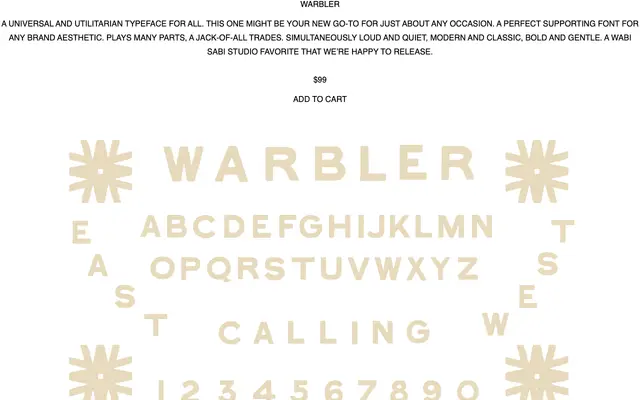
A versatile, utility-minded sans from Wabi Sabi Type pitched as an all-purpose supporting face for brand work.
Warbler is positioned as a workhorse typeface, adaptable enough to suit a wide range of brand aesthetics without demanding attention. The foundry frames it as sitting somewhere between loud and quiet, modern and classic, suggesting a humanist sensibility that holds up in both display and text contexts. Priced at $99, it is listed as a studio favourite at Wabi Sabi Type.
The foundry describes Warbler as simultaneously modern and classic, bold and gentle, suggesting a humanist sans that balances warmth with utility rather than a strict geometric or grotesque approach.